Top 10 best modern fonts for your designs
If you're looking for a great-looking font with a bit of an edge, look no further than this collection of modern fonts. This roundup full of sleek, classy, and versatile fonts is perfect for titles, typography, posters, magazines, brochures, packaging, Websites and much more for your design needs, making your designs more cool. This cool font is complete with Uppercase, Lowercase, Numeric & symbols. Create unique, impressive designs with our modern fonts now.
Masthic - Modern Font
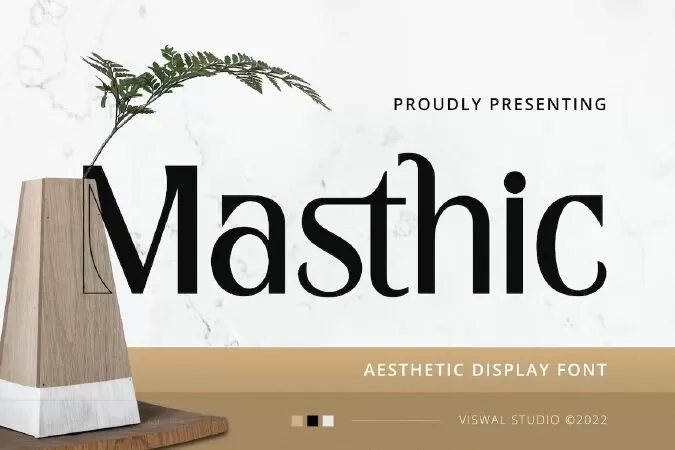
Presenting Masthic - Modern Font is suitable for Logo, Magazine, advertising, branding etc. Our fonts have Uppercase & Lowercase, Numeral & Punctuation, Multilingual support and Opentype Features. For Amazing designs you can mix with other fonts as a complement.
Ejian Modern Font
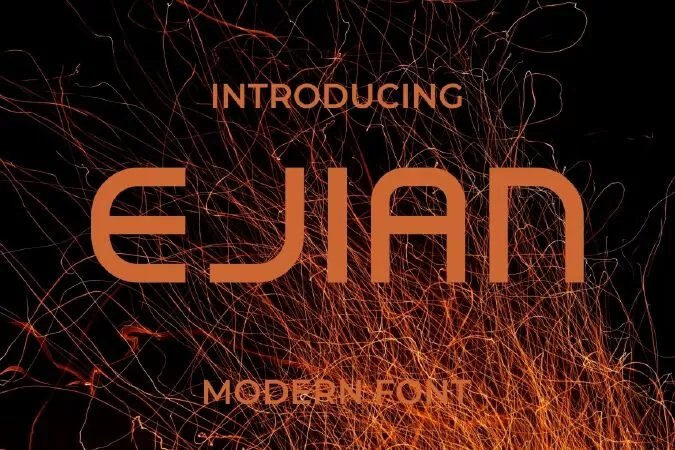
Introducing our new product Ejian Font - Modern Font
Ejian Font - Modern Font is a bold and authentic display font. The font is suitable for any branding project like logo, t-shirt printing, esport, and many more. outstanding in a wide range of contexts.
Modern Font - Bingster
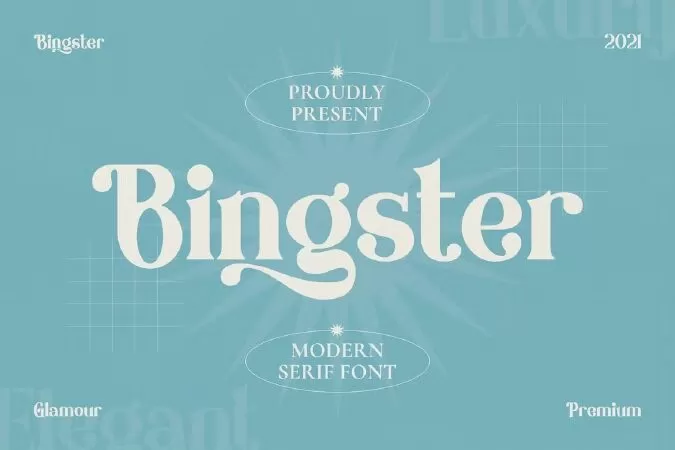
Introducing “Bingster” - A modern serif font. Bringster also includes a bunch of alternates characters to give you a wide range for create an unique typographic design results. Bringster is perfect for an elegant & luxury logo, book or header, fashion brand, magazine, clothes, lettering, quotes, and so much more.
Dengal Modern Font
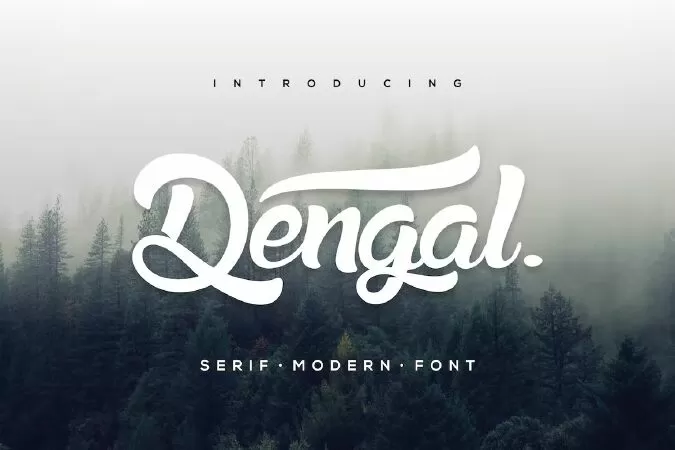
Dengal Font
It is perfect for your up coming projects. Such as modern design, branding, stationery design, blog design, modern advertising design, card invitation, art quote, home decor, book/cover title, special events ( wedding, birthday, etc ), and any more modern elegant design.
Shiro - Modern Font
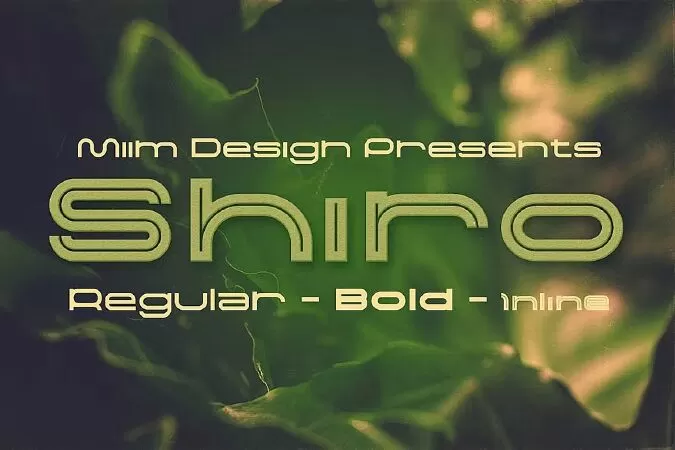
Creative, modern & futuristic font for your new projects. Great for modern or futursitic style projects! 3 font files (otf & ttf) - regular, bold & inline.